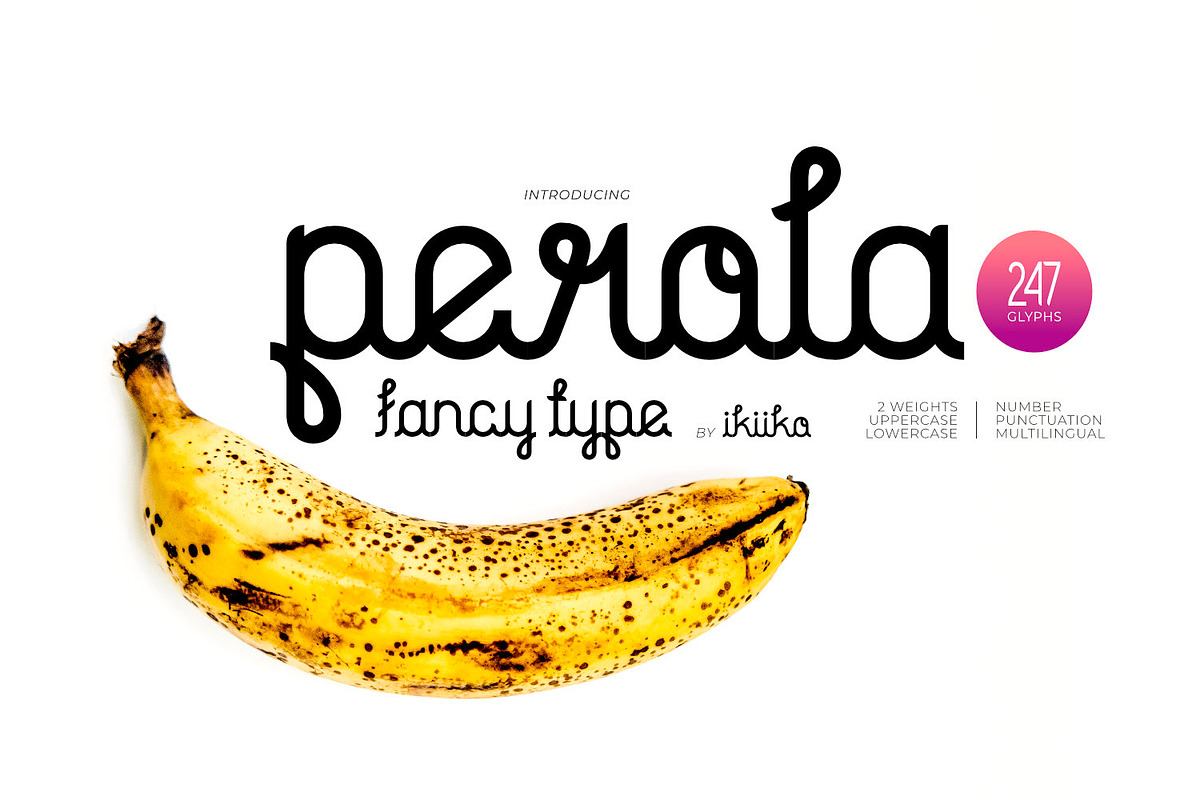
Perola - Fancy Type Free Download is an elegant, ornate typeface that combines intricate, decorative elements with a sophisticated flair. Its graceful curves, detailed strokes, and luxurious aesthetic make it perfect for high-end branding, invitations, fashion-related designs, luxury product packaging, and any project that needs a touch of class and refinement.
Whether you're designing for a formal event, a chic fashion brand, or an upscale business, Perola adds beauty and sophistication to your typography, making it an ideal choice for those who want to make a statement with their designs.